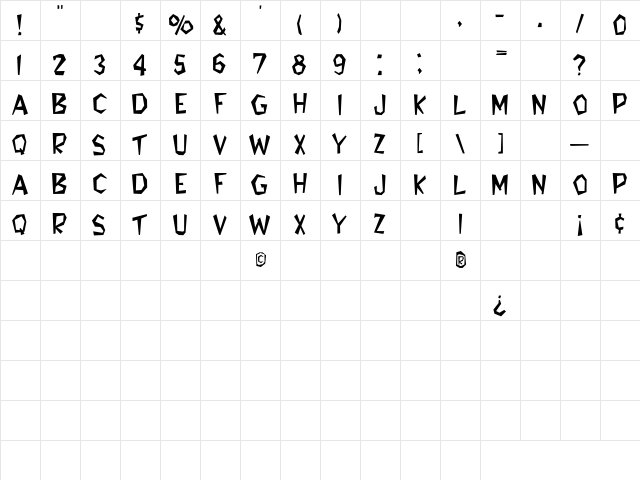
Larousse Regular
Design Context for Larousse Typeface
Larousse is a composed and adaptable typeface that performs quietly and consistently across a wide range of design contexts.